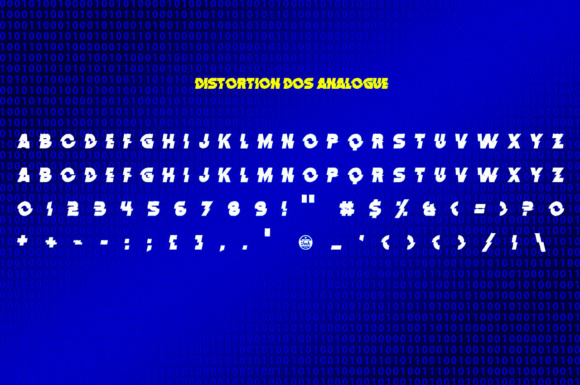
Introduction to Distortion Dos Analogue Font
Have you ever found yourself stuck in the creative process, staring at a blank canvas or a blank page, waiting for inspiration to strike? It’s a moment we’ve all been in, and it’s precisely these moments that make the discovery of a new design resource all the more exciting.
Enter the Distortion Dos Analogue Font, a display font designed by the talented team at chequerd.ink. This high-quality font is a game-changer for designers looking to add a unique touch to their creative projects. With its bold, eye-catching letters, it’s perfect for making a statement on social media, or adding a touch of personality to your next design project.
Key Features of Distortion Dos Analogue Font
- High-quality, bold and distressed typography suitable for creative projects that require a unique design resource.
- Distortion Dos Analogue Font is available in a single weight, ideal for projects where a bold and distressed look is desired.
- Unique characteristics include its distressed texture and bold, analog-inspired design, making it perfect for adding a vintage touch to creative projects.
Honest Review: Distortion Dos Analogue Font
As a designer, I’m always on the lookout for high-quality design resources that can elevate my creative projects. Recently, I had the opportunity to work with the Distortion Dos Analogue Font, and I must say, it’s been a game-changer.
Here’s what I love about this font: ✨ It’s incredibly versatile, suitable for a wide range of design projects, from digital products to print materials. ✨ The font’s distressed, analogue aesthetic adds a touch of nostalgia and grit, perfect for creating a vintage vibe. ✨ The free download option makes it an accessible design resource for designers of all levels.
However, there are a few limitations to consider: ⚠️ The font may not be suitable for projects requiring a transparent background, as the texture and distortion can be distracting. ⚠️ Additionally, the font’s distressed nature can make it difficult to read at smaller font sizes.
Overall, I’m thoroughly impressed with the Distortion Dos Analogue Font. Its unique aesthetic and high-quality design make it a valuable addition to any designer’s toolkit. Whether you’re working on a digital project or a print material, this font is sure to add a touch of creativity and flair.
- Distressed, analogue aesthetic
Tips for Getting the Most Out of the Font
To get the most out of the Distortion Dos Analogue Font, use it in conjunction with a transparent background to create a seamless design. Experiment with different font sizes, colors, and styles to create a unique look for your creative project.
The Distortion Dos Analogue Font is perfect for creating a retro or futuristic look in your design project. Use it for creating logos, graphics, social media posts, and other design elements that require a unique and eye-catching font.